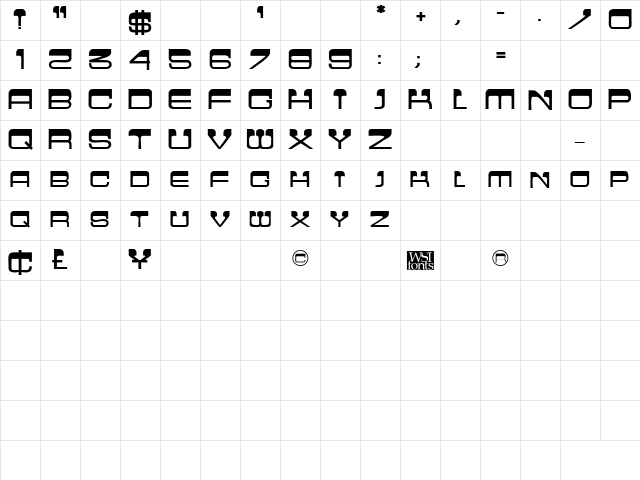
CrewCutCaps Bold Free Font
CrewCutCaps Bold
CrewCutCaps Family
CrewCutCaps Bold
Design Context for CrewCutCaps
CrewCutCaps is a composed and adaptable typeface that performs quietly and consistently across a wide range of design contexts. Its bold stroke weight gives it real presence on the page.